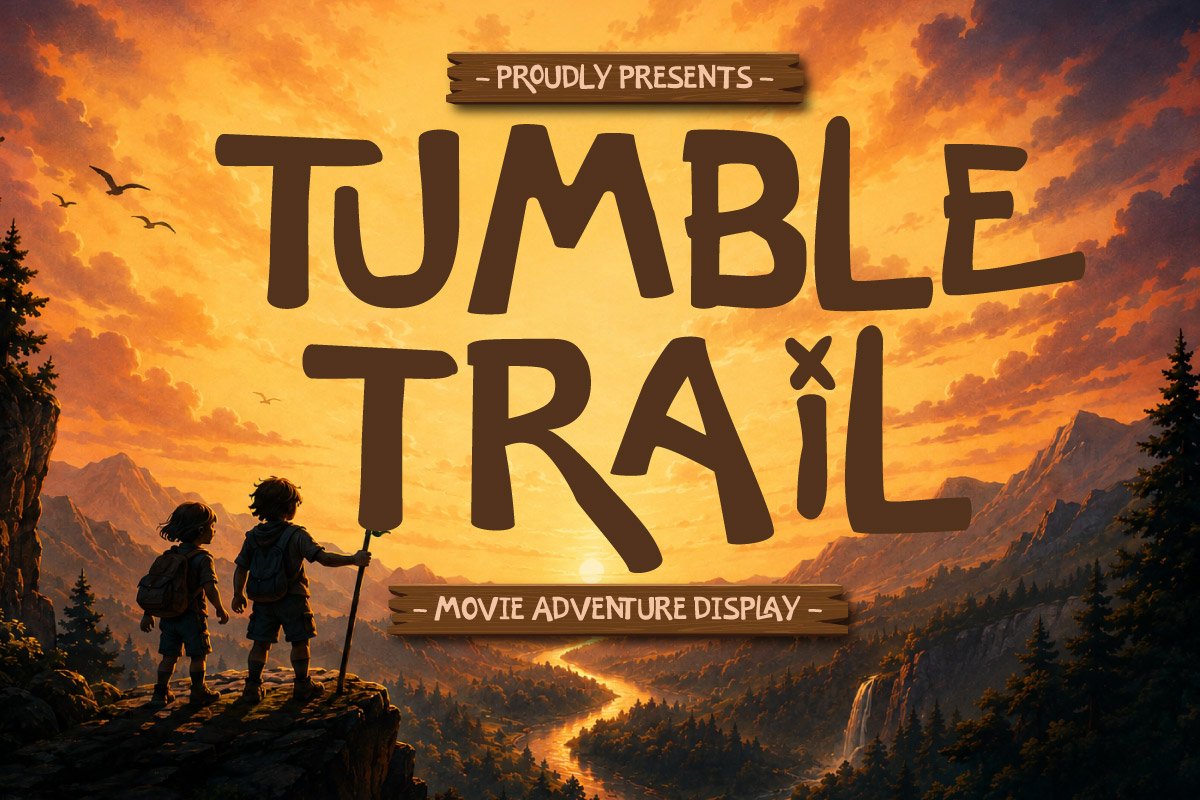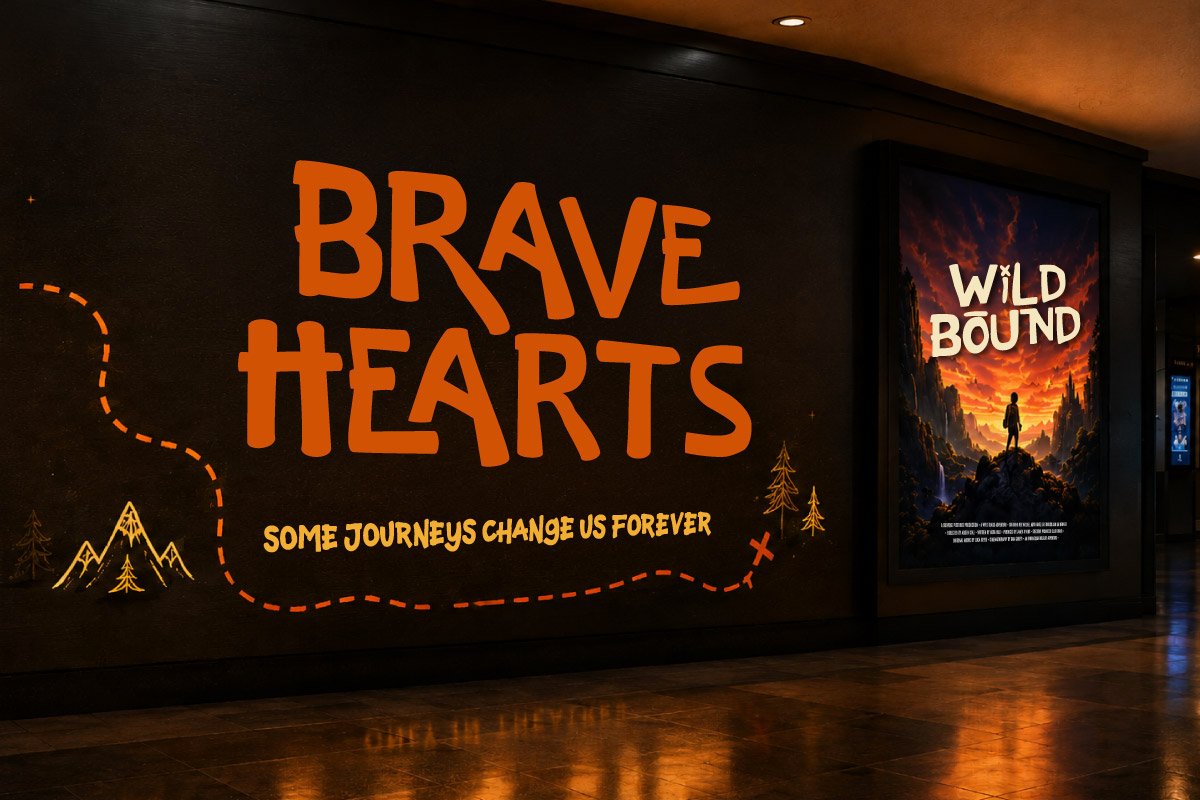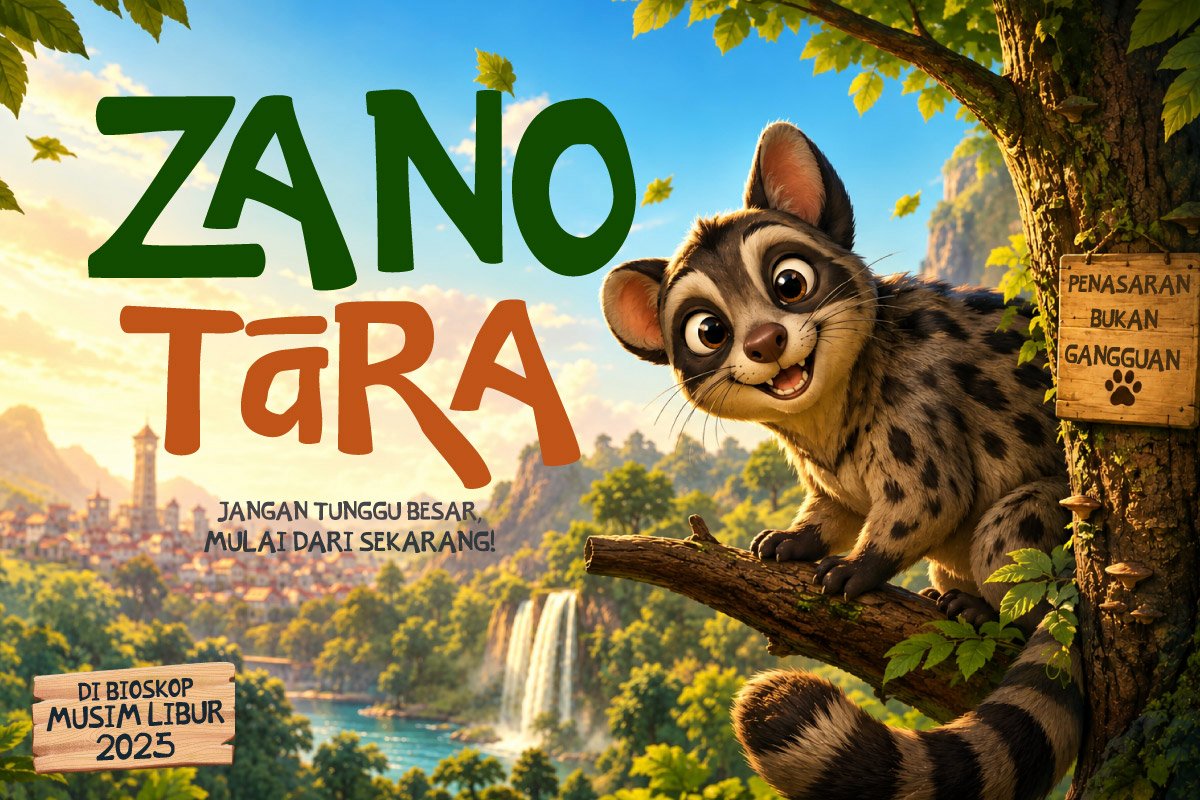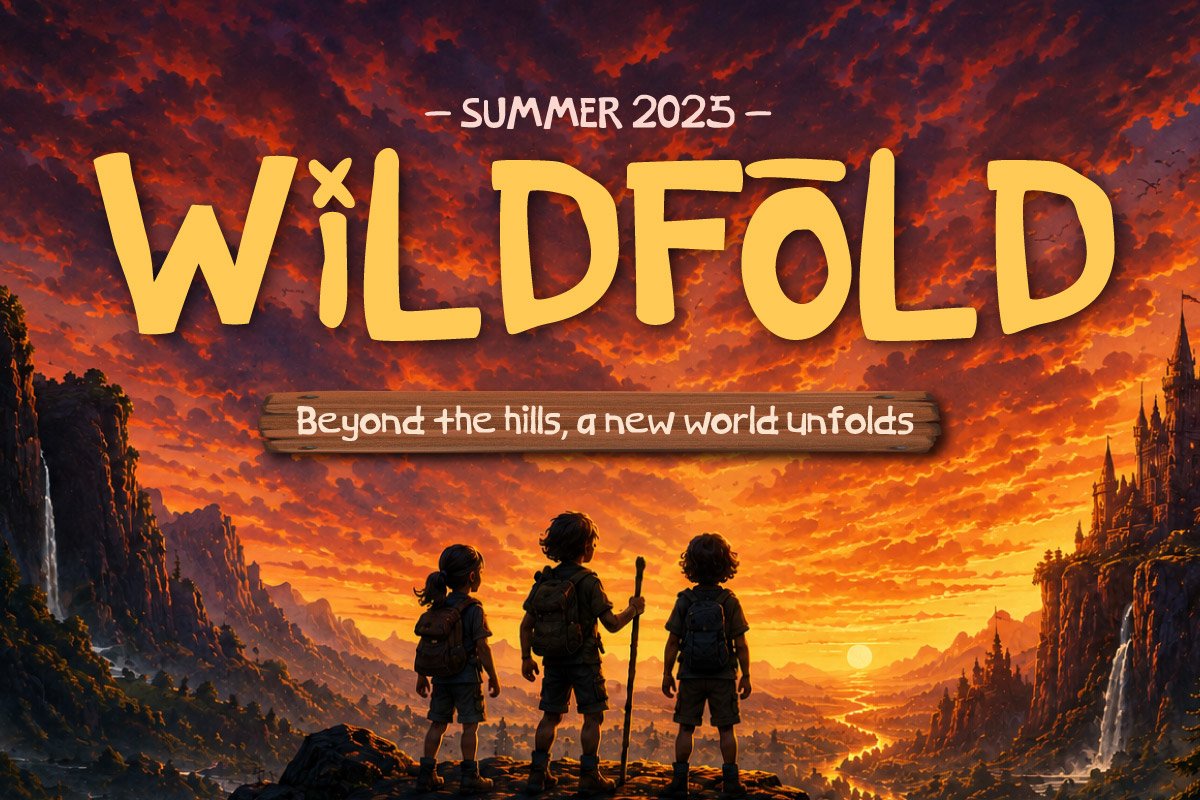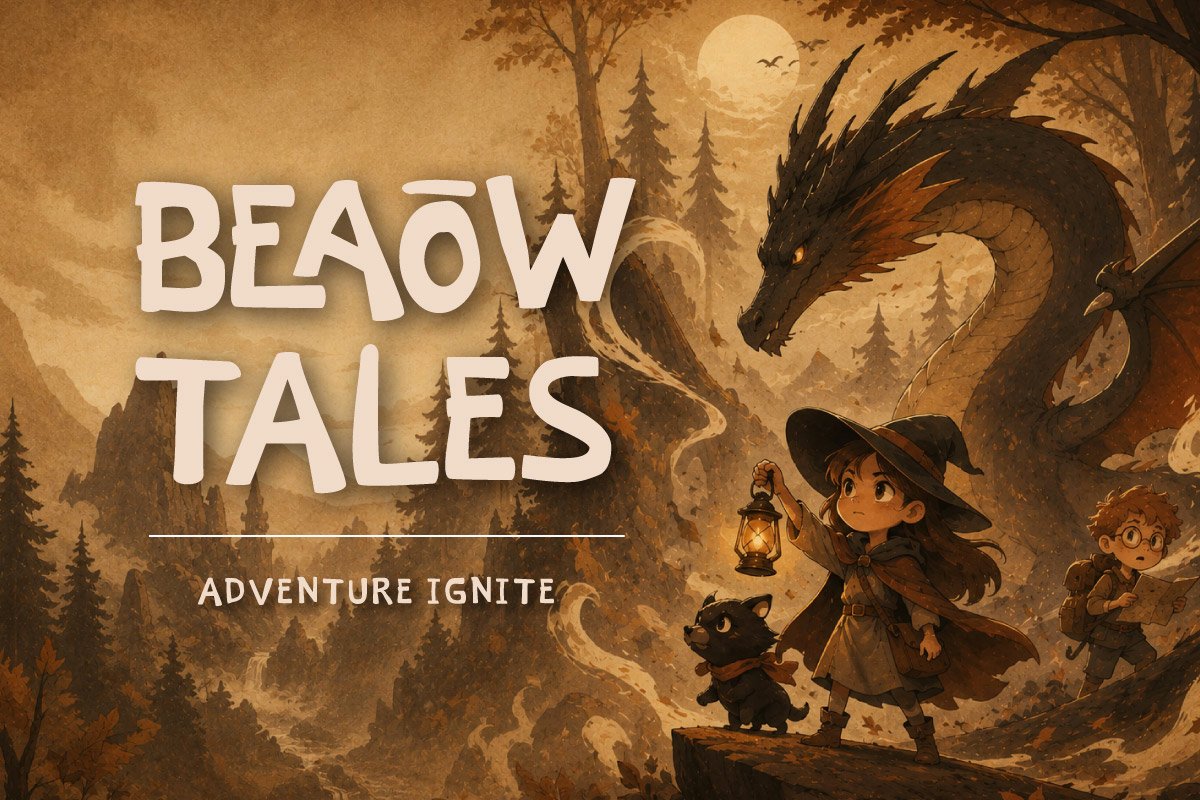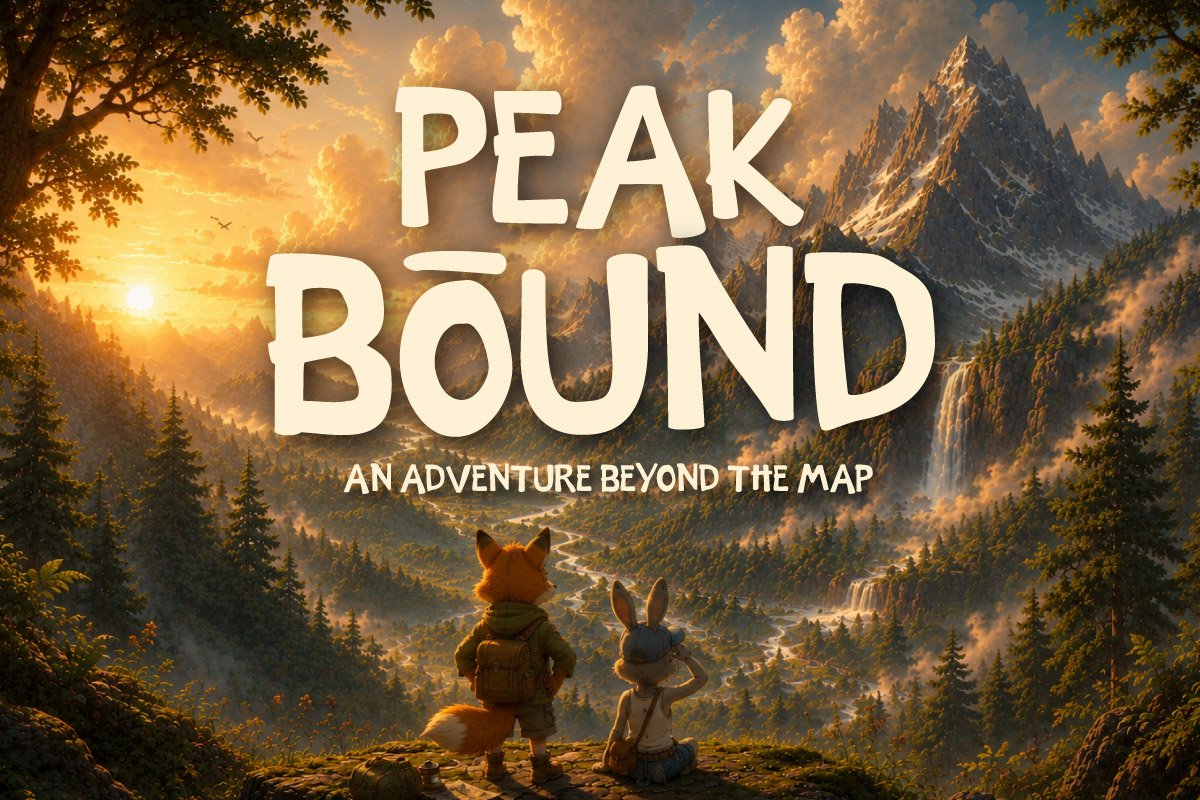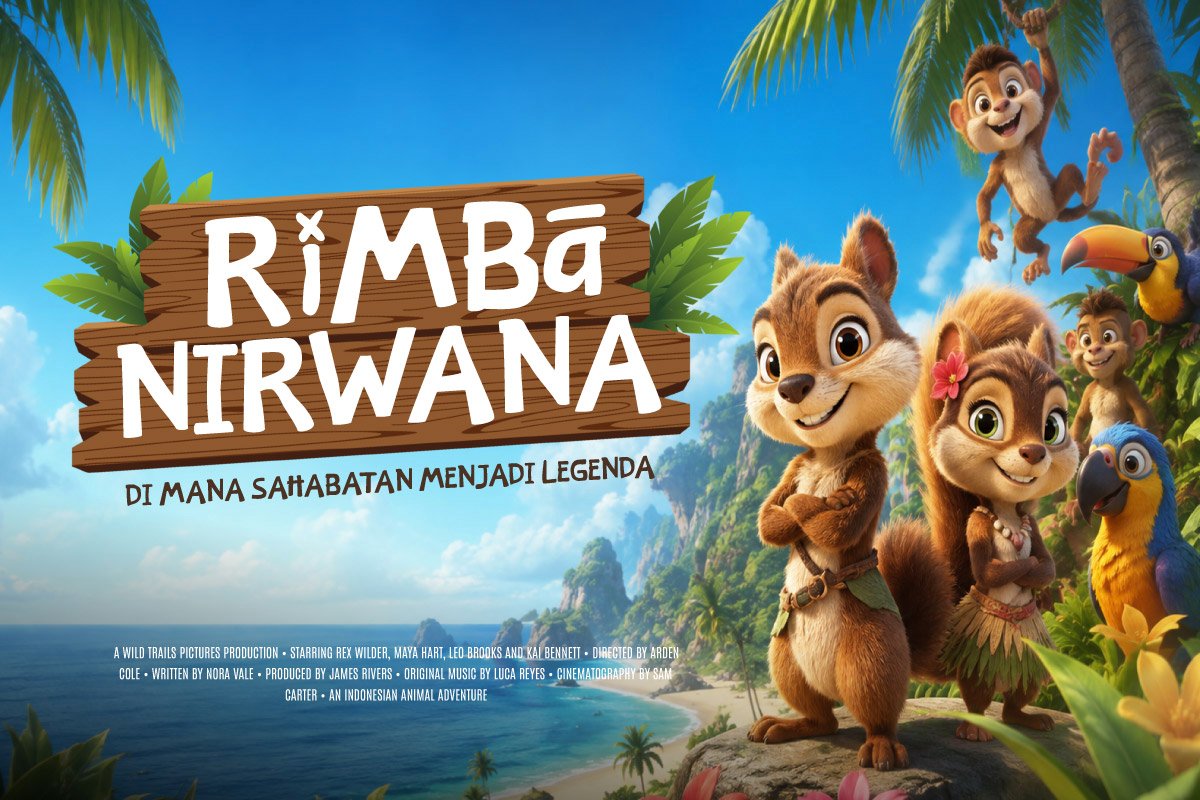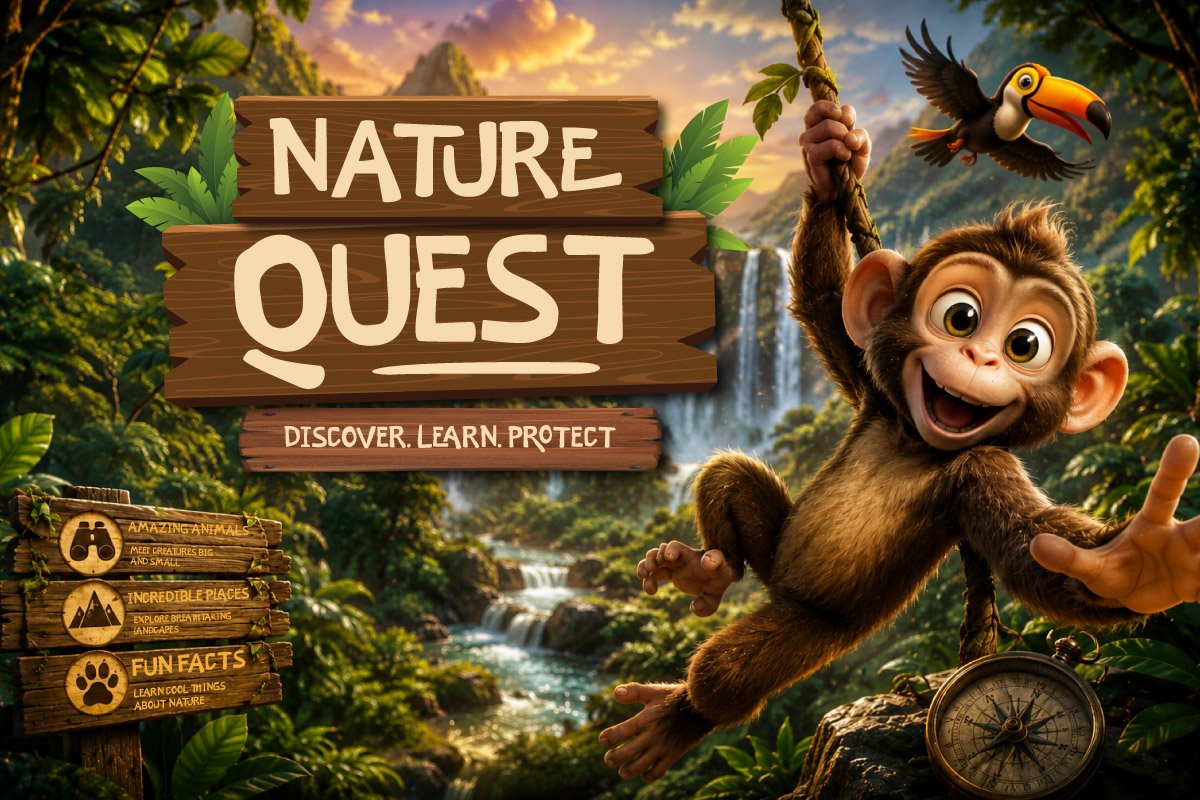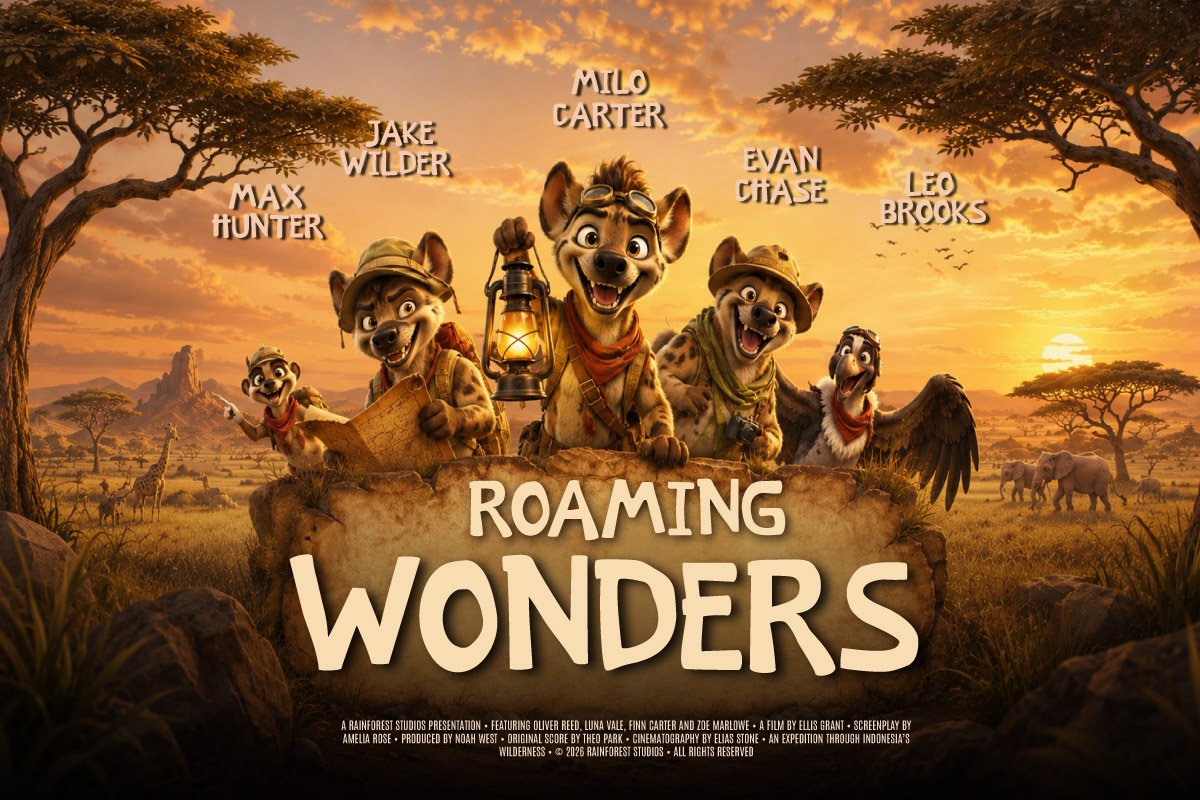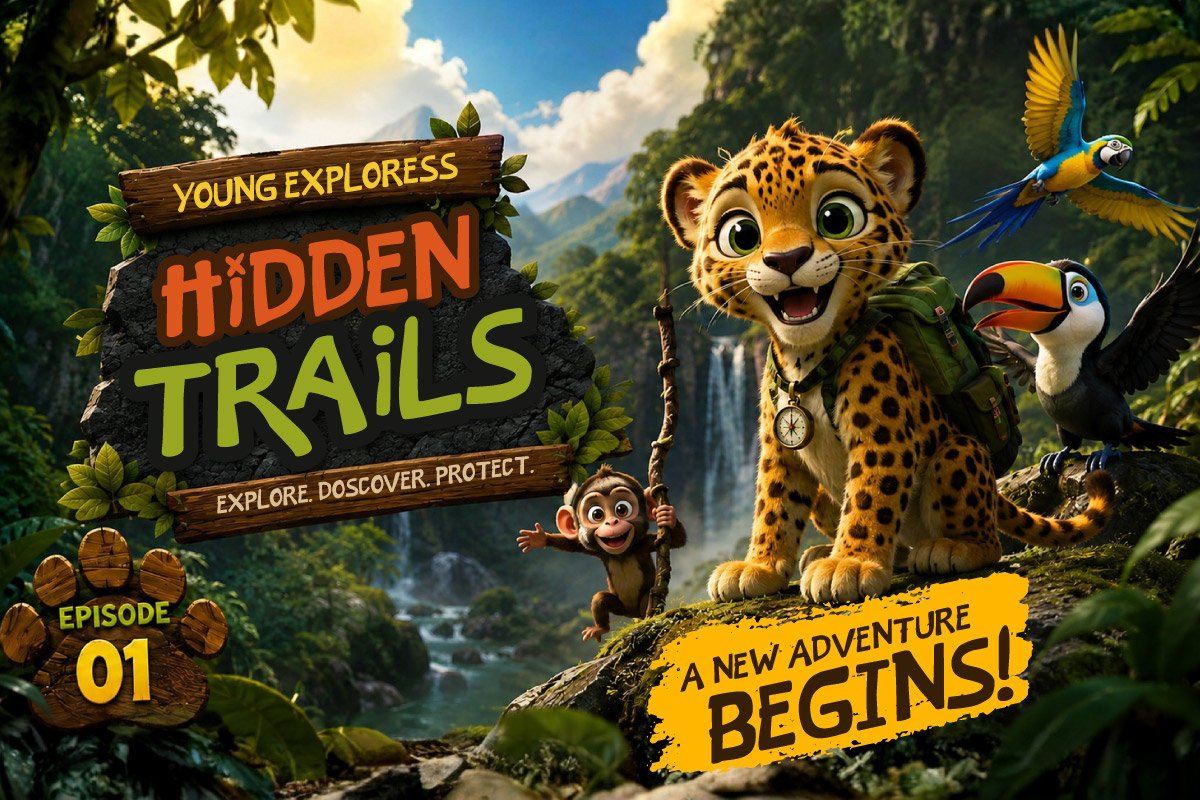
- Tumble Trail – Movie Adventure Diaplay
Tumble Trail – Movie Adventure Display is a playful handwritten display font designed to bring adventure, exploration, and energetic storytelling to life. Its organic, bold, and expressive letterforms create a fun, friendly, and cinematic personality, making it ideal for eye-catching headlines and memorable visual identities.
This font is perfect for children’s adventure, travel documentaries, nature educational content, big screen promotion, animated movies, kids entertainment, adventure posters, outdoor campaigns, and storytelling projects. Tumble Trail works beautifully for movie titles, film posters, trailers, branding, children’s book covers, merchandise, social media content, YouTube thumbnails, and promotional campaigns.
With its playful character and strong visual impact, Tumble Trail creates a fun, adventurous, youthful, and memorable look. A great choice for designers, film studios, children’s brands, content creators, and creative teams looking for a unique display font that captures the spirit of exploration and adventure.